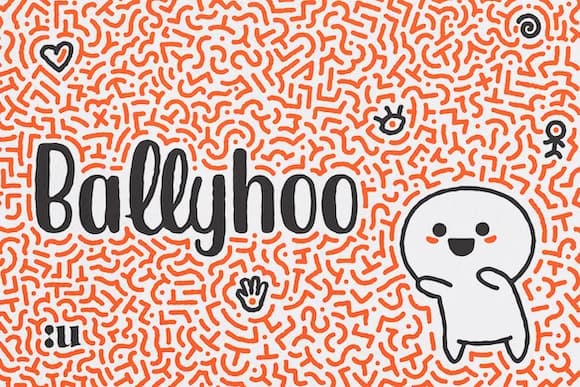
This font radiates energy and joy from the first glimpse. Ballyhoo, designed by unio.creativesolutions, is a playful script that works like a handwritten burst of genuine personality on any project looking for authentic visual warmth and character.
It's got that loose, casual feel that immediately catches attention without seeming overworked or stiff. The letterforms have a natural rhythm, moving across the page with the ease of real handwriting, not formal calligraphy or polished penmanship. Think custom event invitation suites where personality matters, indie brand logos that stand out in crowded marketplaces, or hand-lettered product packaging that signals care and human craftsmanship. Wedding favor tags, seasonal greeting cards, Etsy shop headers, merchandise branding, and DIY craft signage all come alive with this typeface's approachable, genuinely human quality. When you need real character instead of corporate formality, this script delivers exactly what you're looking for.
Pair Ballyhoo with a clean, modern sans-serif to anchor your layout while letting this script handle the expressive work. The contrast between loose handwriting and structured geometry creates visual rhythm and balance without descending into visual chaos. Find it on Creative Fabrica, ready to add authentic warmth and genuine personality to your next design project.
Ballyhoo Font is a script font that shines as a display or heading face. Pair it with a clean sans-serif or serif font for body text β the contrast creates a clear hierarchy while the two styles stay balanced and easy to read.